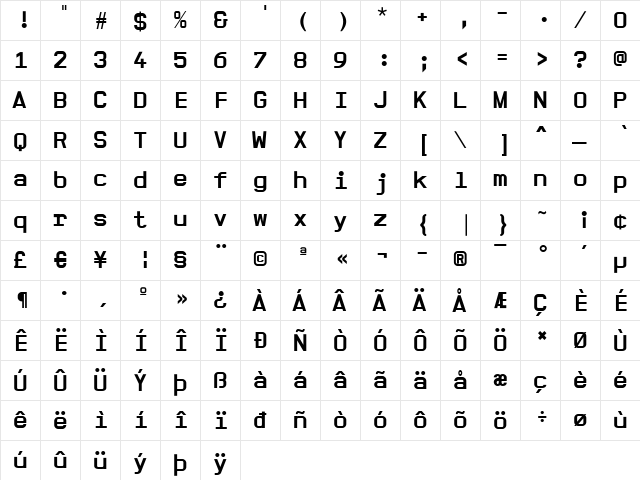
Office Bold
Design Context for Office Typeface
Office offers clean, dependable letterforms without strong stylistic allegiance, making it a practical choice for designers who need flexibility. The heavy weight commands attention and anchors typographic hierarchies.
Pro Tip: Pair Office with a font of contrasting weight or personality to build a more expressive typographic hierarchy.